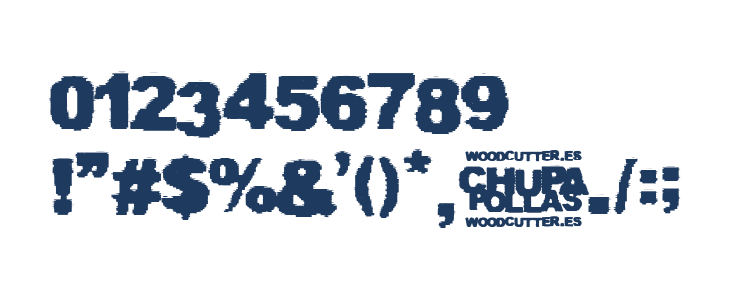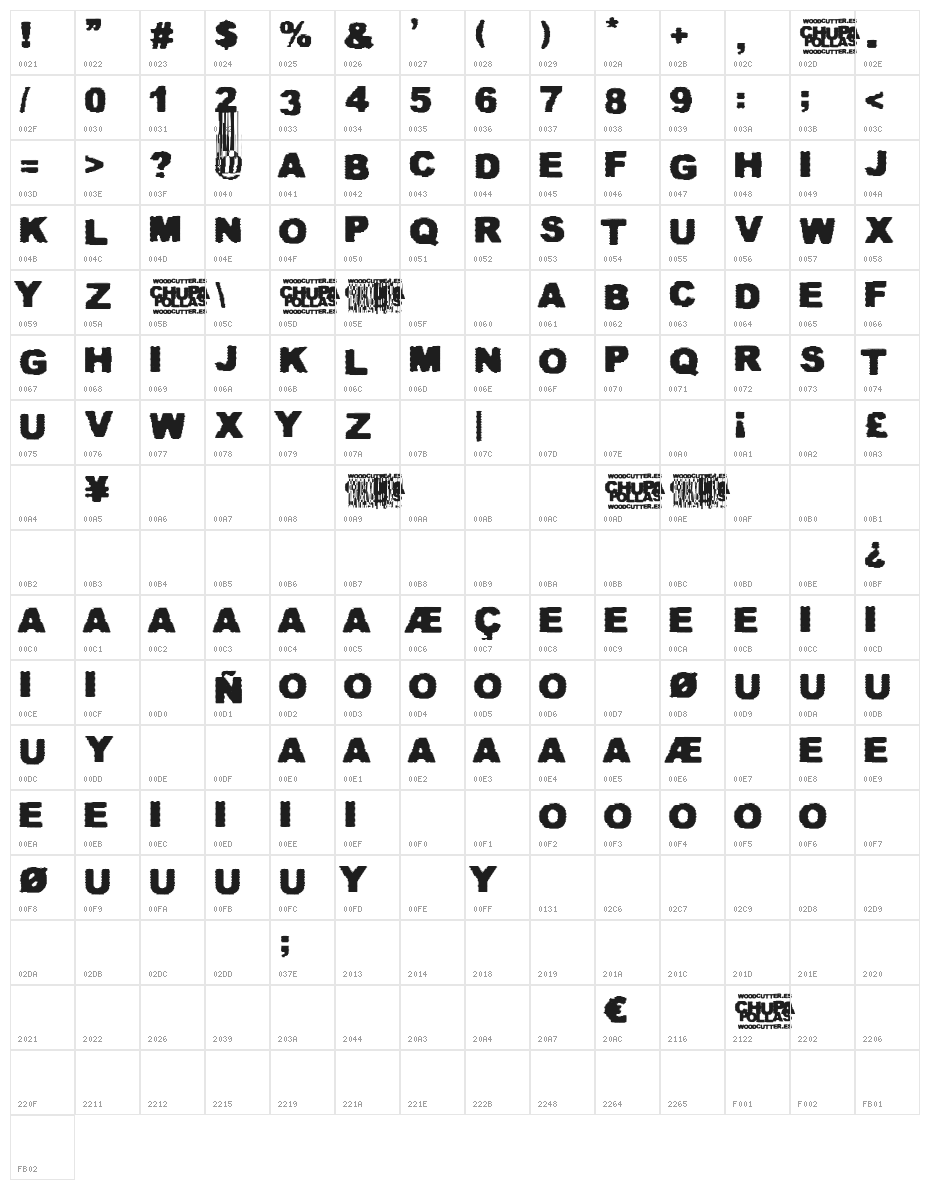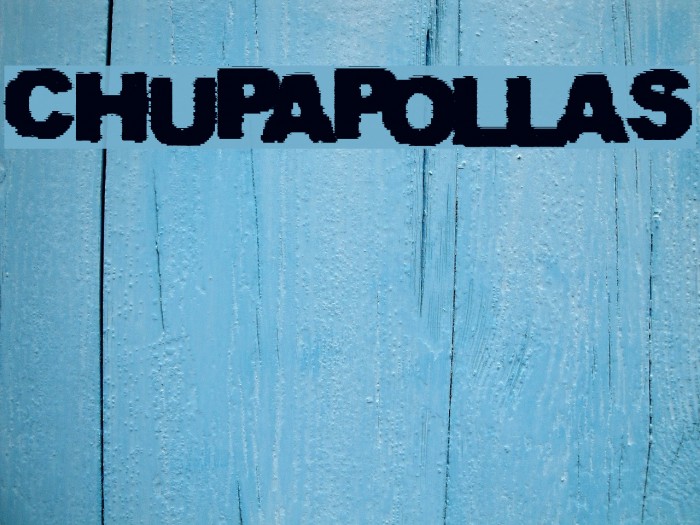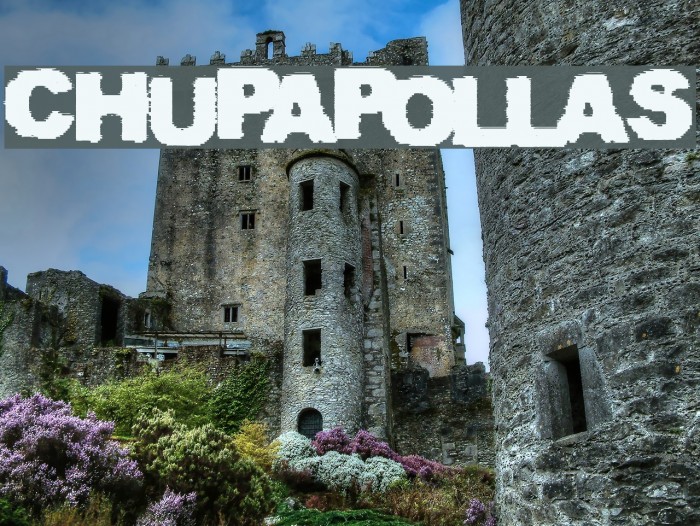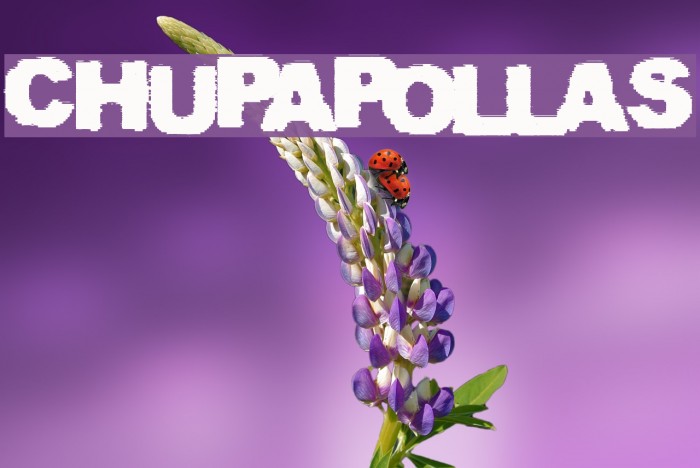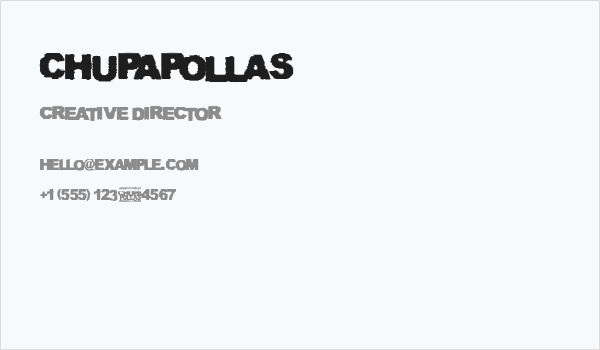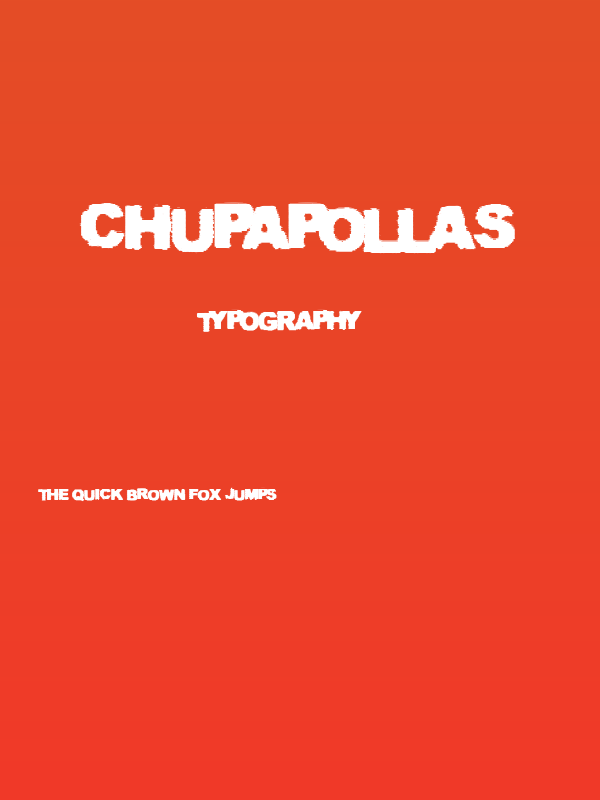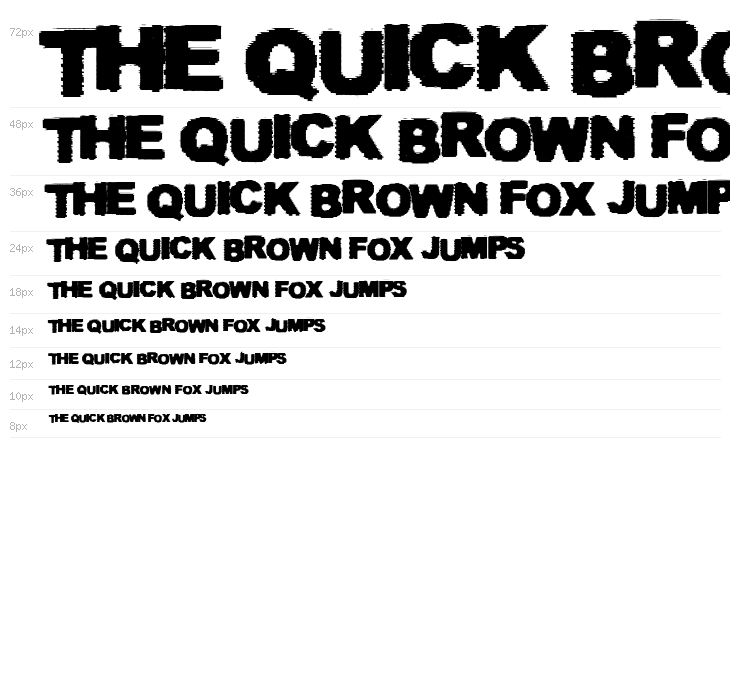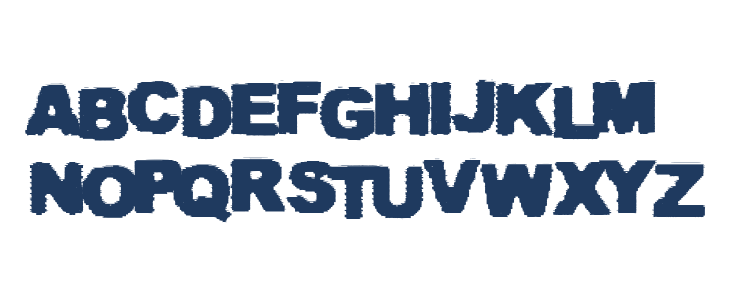
CHUPAPOLLAS Font
CHUPAPOLLAS Description
This font features a bold, distressed style with a rough, textured appearance. The characters are uppercase and have a strong presence, making them ideal for impactful designs. The letters are slightly irregular, giving a hand-crafted feel that adds to its unique charm. The numbers and special characters maintain the same rugged aesthetic, ensuring consistency across all elements. This font is perfect for projects that require a bold statement or a vintage, grunge look.
| Overall Style | Vintage, Grunge |
| Proposed Projects | Ideal for posters, album covers, branding, and any design needing a bold, vintage touch. |